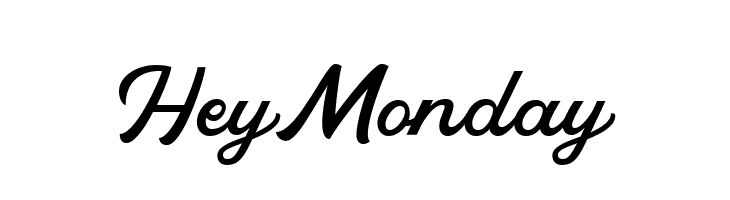
( Fonts by Manfred Klein - manfred-klein.ina-mar.com )
A bold, geometric font with a modern and futuristic style.
( Fonts by www.vicfieger.com )
A bold, modern font with a unique horizontal striped pattern.
( Fonts by Khurasan )
A bold, italicized font with dynamic and energetic styling.
( Fonts by EssentialsStudio - Personal-use only. For commercial use please contact owner. )
A bold, decorative font with medieval-inspired serifs and ornate details.
( Fonts by Akalollip )
A modern, geometric sans-serif font with clean lines and uniform strokes.
( Fonts by Castcraft Software - OPTI Fonts Archive - opti.netii.net - Personal-use only. For commercial use please contact owner. )